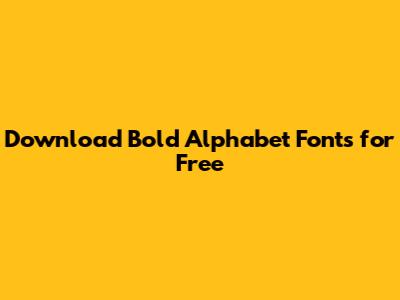
Download Bold Alphabet Fonts For Free
Hey guys! Ever found yourself staring at a blank canvas, needing that perfect font to make your text POP? You know, something with a bit of oomph, a solid presence that screams 'read me!'? Well, you're in luck because we're diving deep into the awesome world of bold alphabet fonts and how you can snag them for free. Whether you're a designer crafting a killer poster, a blogger spicing up your latest post, or just someone who loves making their words stand out, finding the right bold font can be a game-changer. It's not just about making text bigger; it's about adding personality, impact, and readability. A good bold font can transform a bland sentence into a powerful statement. Think about headlines, calls to action, or even just your username – a strong font grabs attention immediately. We'll explore where to find these typographic treasures, what makes a bold font great, and how to use them effectively to elevate your creative projects. So buckle up, because we're about to unleash the power of bold!
Why Go Bold with Your Fonts?
So, why all the fuss about bold alphabet fonts? It's simple, really. In a world saturated with visual information, bold fonts are your secret weapon for cutting through the noise. They command attention, making whatever you want to highlight instantly more noticeable. Think of it like shouting (in a good way!) instead of whispering. This is crucial for everything from website headlines and marketing materials to social media graphics and even presentations. A bold font can instantly convey strength, confidence, and importance. It helps guide the reader's eye, ensuring that your key messages aren't missed. Plus, bold typography adds a visual weight that can balance out other design elements. It creates hierarchy, telling your audience what's most important and what's secondary. For example, a strong, bold title next to a paragraph of regular text clearly indicates where the reader should focus first. It's also fantastic for creating contrast and visual interest. Imagine a sleek, modern design; incorporating a chunky, bold font can add an unexpected and captivating element. It breaks up monotony and adds a dynamic feel. And let's not forget readability! While thin fonts can sometimes be difficult to read, especially on smaller screens, a well-designed bold font is often incredibly clear and legible, even at a distance or in less-than-ideal lighting conditions. This makes it a practical choice for many applications. So, if you want your message to resonate, to be seen, and to make an impact, choosing a bold font is a seriously smart move. It’s the typographic equivalent of wearing a sharp suit to an important meeting – it means business!
Where to Find Free Bold Alphabet Fonts
Alright, my creative peeps, the burning question is: where can you download bold alphabet fonts for free? The good news is, there are a TON of awesome resources out there. You don't need to break the bank to get your hands on some seriously stylish bold fonts. One of the go-to spots for many designers is Google Fonts. They have an extensive library of high-quality, free fonts, many of which come in various weights, including bold. You can easily filter by style and download them for commercial and personal use, which is super convenient. Another fantastic platform is Font Squirrel. They curate a collection of commercially free fonts, meaning you can use them without worrying about licensing issues for your projects. They often have a great selection of bold display fonts that are perfect for grabbing attention. Then there's DaFont and FontSpace. While these sites have a massive variety, you do need to be a bit more mindful of the licensing. Many fonts are free for personal use, but always double-check before using them in a commercial project. Still, they are treasure troves for finding unique and sometimes quirky bold styles. Don't forget about Behance and Dribbble! Many talented designers share their font creations for free on these platforms. It's a great way to discover fresh, cutting-edge bold fonts that you might not find anywhere else. Just search for 'free bold font' or 'free display font' and prepare to be amazed. Remember, guys, the key is to check the license agreement for each font. Most free fonts are great for personal projects, but commercial use often requires specific permission or a different license. So, do your homework, and you'll be swimming in a sea of fantastic free bold fonts in no time!
Types of Bold Fonts and Their Uses
When we talk about bold alphabet fonts, it's not just a one-size-fits-all situation. There's a whole spectrum of boldness and styles out there, each serving a unique purpose. You've got your classic Slab Serifs, like Rockwell or Arvo. These bad boys have thick, block-like serifs that give them a sturdy, almost retro feel. They're perfect for adding a touch of vintage charm or a strong, grounded presence to headlines, posters, and logos. Think of old-school signage or a classic Western movie poster – that's the vibe! Then there are the Geometric Sans Serifs in their bold iterations, like Futura Bold or Montserrat ExtraBold. These fonts are clean, modern, and have a strong, geometric construction. They exude a sense of sophistication and clarity, making them ideal for contemporary branding, website headers, and minimalist designs. Their boldness adds a powerful punch without being overwhelming. We also see a lot of Grotesque/Gothic Sans Serifs in bold, such as Impact or Oswald. These are some of the most recognizable bold fonts out there. They are known for their straightforward, no-nonsense appearance and are often used for maximum impact in headlines and titles. If you need something to scream 'look at me!', these are your go-to. For a more decorative or expressive feel, you might explore Display Fonts that come in bold weights. These can range from hand-drawn styles to more stylized, artistic designs. They are fantastic for specific themes, event invitations, or anything where you want a font to be a central design element. Just be mindful that extremely decorative bold fonts might sacrifice some readability, so they're best used sparingly for maximum effect. Lastly, don't forget about the various Bold weights within font families. Many professional font families offer a range from Light to Black. The 'Bold' or 'ExtraBold' or 'Black' weights within these families are designed to complement the lighter weights, providing a consistent yet impactful typographic system. These are super versatile for creating strong contrasts within a single design. Understanding these different styles will help you pick the perfect bold font for whatever project you're dreaming up!
Tips for Using Bold Fonts Effectively
Okay, guys, you've downloaded some killer bold alphabet fonts, but how do you use them without making your design look like a ransom note? It's all about balance and intention! First off, less is more. Don't go overboard and make every single word bold. That defeats the purpose and just looks messy. Use bold fonts strategically for emphasis. Think headlines, subheadings, important keywords, or calls to action. These are the elements you want your audience to notice first, and a bold font is perfect for that. Secondly, consider the contrast. A bold font looks most effective when paired with a lighter font. This creates a clear visual hierarchy and makes your design more dynamic. Imagine a bold headline above a paragraph of regular text – it’s a classic combo for a reason! Don't be afraid to mix and match, but keep it harmonious. Thirdly, mind the kerning and spacing. Bold fonts, especially thicker ones, can sometimes have awkward spacing between letters. You might need to adjust the kerning (the space between specific pairs of letters) or tracking (overall letter spacing) to ensure it looks smooth and professional. Sometimes, a bold font needs a little extra breathing room. Fourth, think about the context. Where will this design be seen? If it's for a small mobile screen, an ultra-bold, condensed font might become illegible. Conversely, a very wide, bold font might not fit well on a large banner. Always test your chosen bold font in the intended environment. Finally, ensure readability. While bold fonts are great for impact, they should still be easy to read. Avoid using overly decorative or condensed bold fonts for large blocks of text. Stick to clearer, more robust bold styles for maximum legibility. By following these tips, you'll be able to harness the power of bold typography to make your designs truly shine, making sure your message is not only seen but also understood loud and clear!
Popular Free Bold Font Examples
Let's talk about some crowd-pleasers! When you're looking for free bold alphabet fonts to download, there are a few champions that consistently deliver. First up, we have Oswald. This is a fantastic, versatile sans-serif font that's optimized for screens. Its bold weight is strong and clear, making it perfect for headlines, captions, and UI elements. It maintains excellent readability even at smaller sizes, which is a huge plus. It's available on Google Fonts and is completely free for commercial use. Next, Montserrat is another gem from Google Fonts. Inspired by the old posters and signs in the traditionalMontserrat neighborhood of Buenos Aires, this geometric sans-serif has a wonderful range of weights. The ExtraBold and Black weights are incredibly impactful and stylish, great for creating modern, confident designs. It’s a favorite for branding and web design. Then there's Lato. This sans-serif font, also on Google Fonts, has a semi-rounded feel that makes it feel warm and friendly, even in its bold weights. The Bold and Black versions offer a substantial presence without feeling harsh, making them suitable for a wide variety of projects where you need both strength and approachability. For something with a bit more character, check out Bebas Neue. This is a popular, condensed sans-serif font that is absolutely stellar for headlines and titles. Its tall, narrow form in bold makes it incredibly space-efficient and attention-grabbing. It's freely available and a staple for many designers looking for that impactful, uppercase look. And we can't forget Impact! While often pre-installed on many systems, its bold, condensed style is iconic for a reason. It delivers maximum punch with minimal space, though it can be a bit dated if not used carefully. These examples are just the tip of the iceberg, guys, but they are all readily available, free to download, and incredibly effective for adding that essential boldness to your text. Happy designing!
So there you have it, folks! We've journeyed through the vibrant landscape of bold alphabet fonts, exploring why they're essential, where to find them for free, the different styles available, and how to use them like a pro. From commanding attention on headlines to adding weight and personality to your designs, bold fonts are indispensable tools in any creative's arsenal. Remember those awesome resources like Google Fonts, Font Squirrel, and DaFont, and always be sure to check the licensing. Use bold strategically, mind your spacing, and pair them with lighter fonts for maximum impact. Whether you're aiming for a modern, geometric feel with Montserrat, a classic punch with Oswald, or a condensed impact with Bebas Neue, there's a free bold font out there waiting to elevate your next project. So go forth, experiment, and make your words stand out. Happy designing, guys!